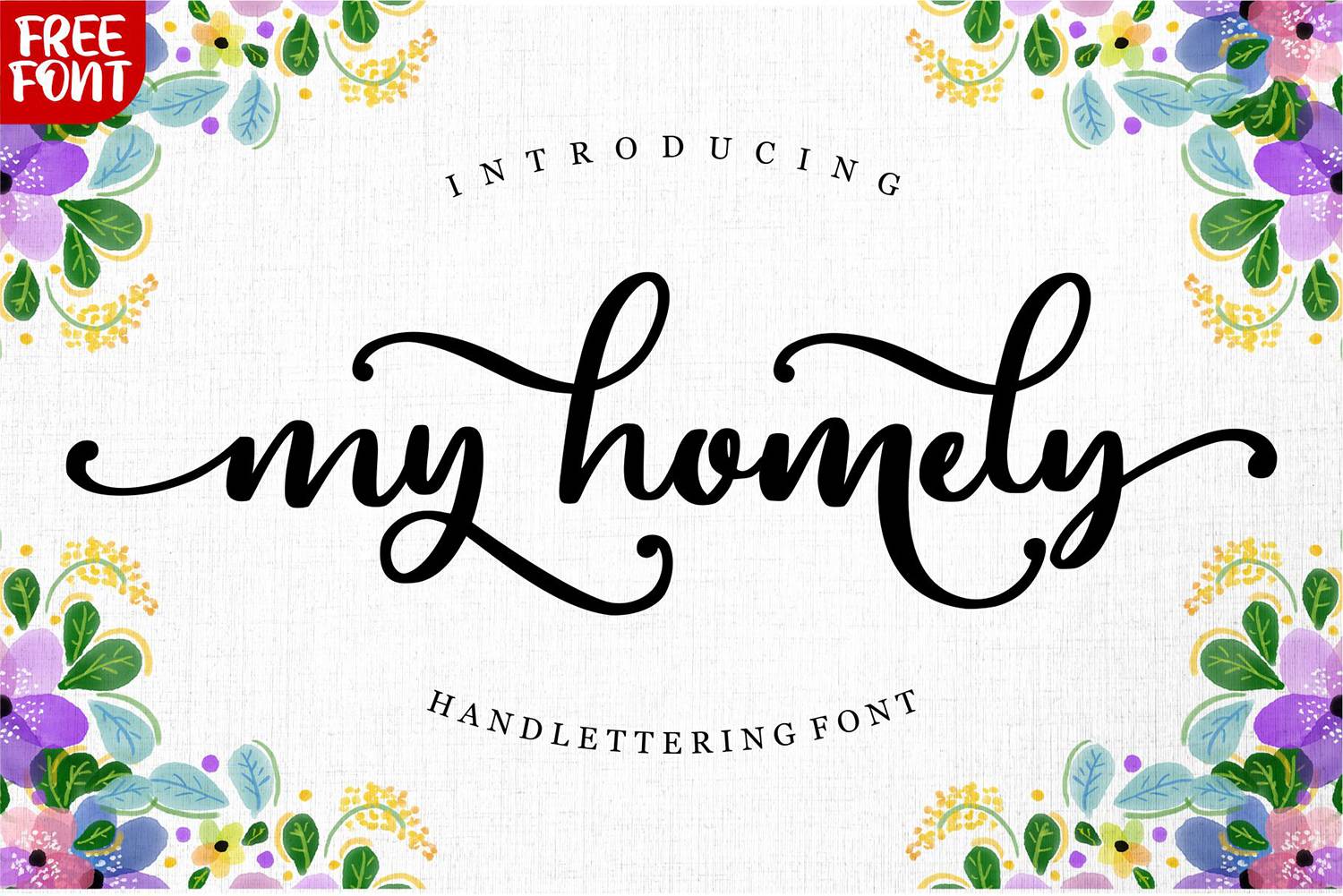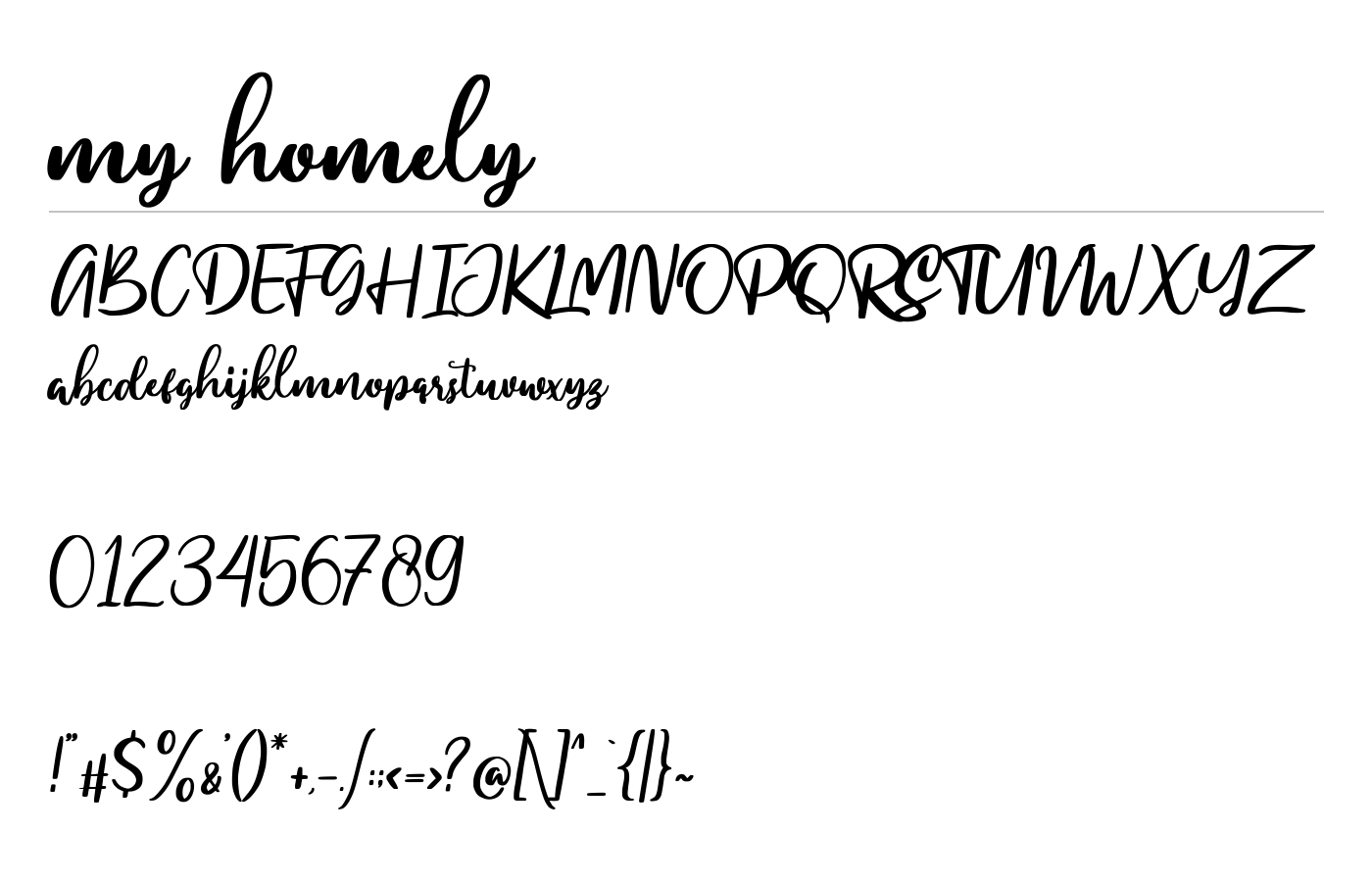
My Homely Font is a lively and elegant script typeface with a handwritten feel that blends smooth, flowing strokes with playful letterforms. It features a medium weight with moderate contrast and a natural, brush-like texture, making it perfect for cozy, personal, and creative branding projects like invitations, packaging, and editorial headlines. This font’s warm and inviting personality brings a friendly yet refined touch to designs that seek a charming, approachable style.
My Homely Font
About My Homely Font
| Font family | My Homely Font |
| Designer | Good Java Studio |